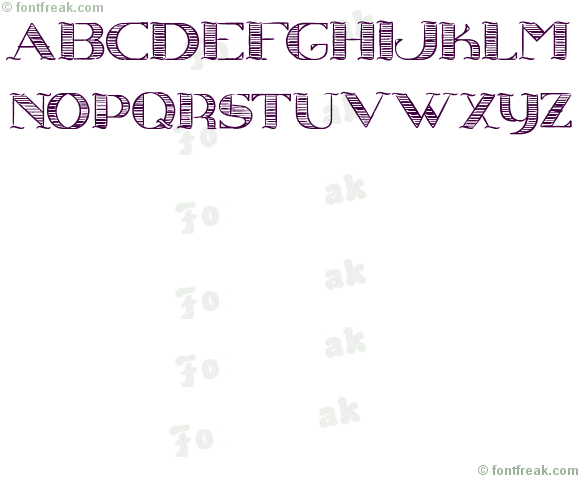
CONJECTURE
About CONJECTURE
CONJECTURE by Maelle.K is a unique and captivating decorative font that effortlessly blends creativity with elegance. This freeware font is perfect for personal use, making it an excellent choice for various design projects. CONJECTURE falls into the category of decorative fonts, characterized by its playful yet structured aesthetic. The visual characteristics include a mix of thick and thin strokes, providing a dynamic contrast that draws attention. The spacing between letters is thoughtfully designed, ensuring readability while maintaining an artistic flair. Decorative elements, such as stylized lines and varied textures, add personality to the typeface, making it stand out in any design context.
This versatile font is ideal for a range of specific use cases. It shines in wedding invitations, where its whimsical nature can enhance the romantic theme. Additionally, CONJECTURE is well-suited for movie posters, giving titles an eye-catching appeal that captures the audience's attention. Restaurant menus can also benefit from its distinctive style, adding a unique touch that reflects the culinary experience. Content creators will appreciate its charm in social media graphics, helping to convey a brand's personality. Ultimately, graphic designers and small business owners looking to make their projects memorable will find CONJECTURE to be an invaluable asset.
What sets the CONJECTURE font apart is its ability to balance creativity and functionality. While it boasts a striking visual style, it remains adaptable to various contexts, allowing users to express their creativity without sacrificing clarity. Its free download option makes it accessible for everyone, inviting artists and designers to explore its potential in their work. If you’re seeking a font that combines artistic flair with practical use, look no further than CONJECTURE.